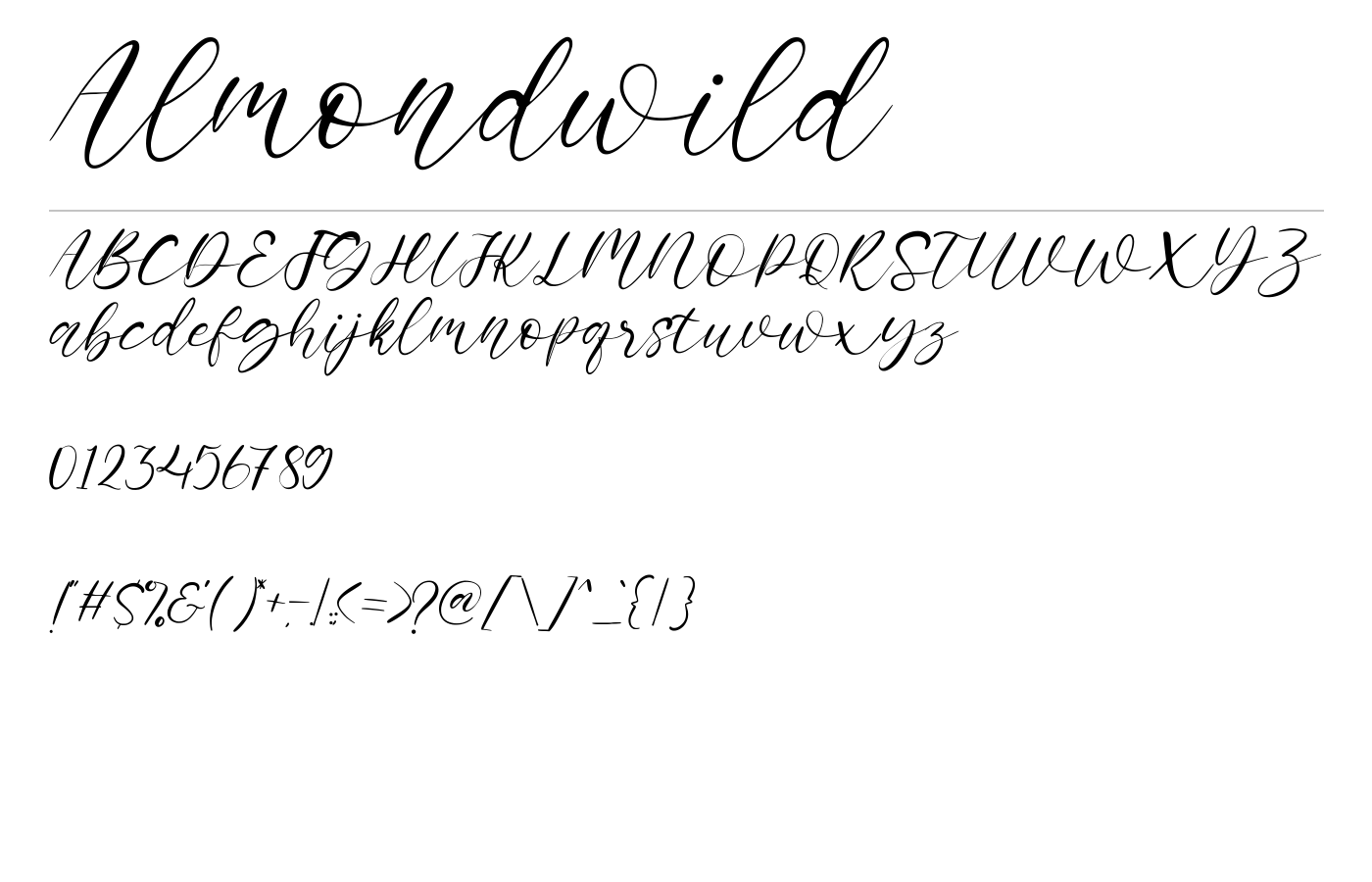
Almondwild is a delicate, elegant script font with a light weight and high contrast between its thin strokes and occasional thicker swashes. Its flowing, handwritten style features graceful loops and slender letterforms, making it perfect for sophisticated branding, invitations, and feminine design projects that need a personal, stylish touch. This font’s airy and refined character lends a luxurious yet approachable feel, ideal for fashion, wedding, or beauty-related uses.
Almondwild Font
About Almondwild Font